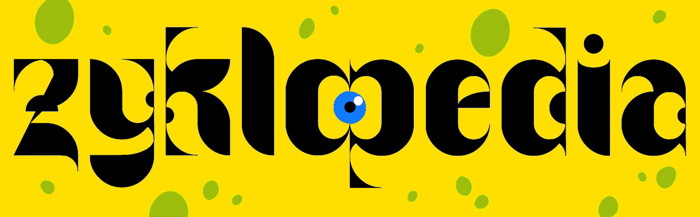
My 2nd summer fun.
A very cheerful design. It has elements of uncials and Art Nouveau (an unusual combination...). 10/10
Nice and bubbly letters. Good demo picture. 10/10
A refereshing and exciting new way of arranging those bricks.